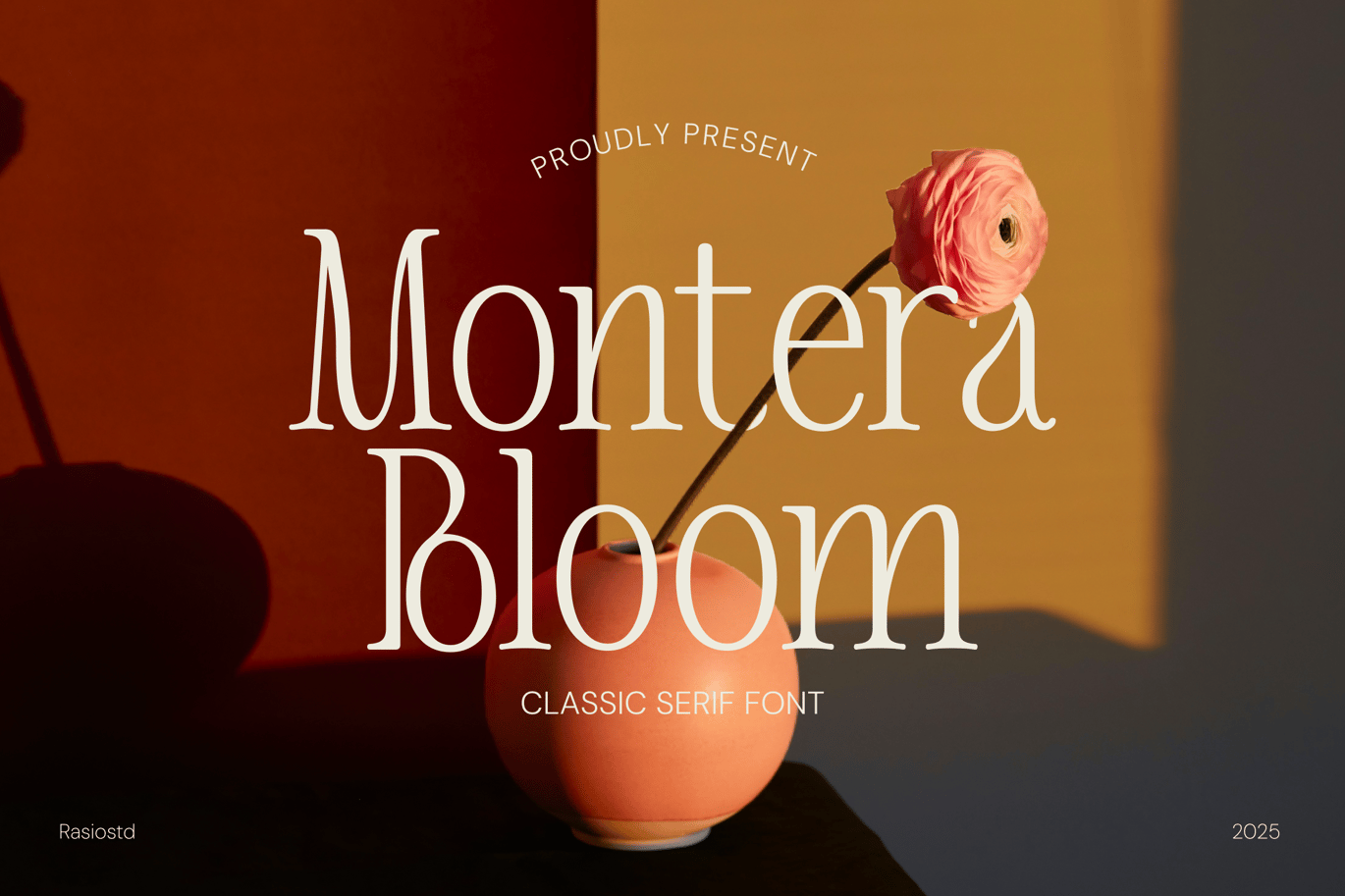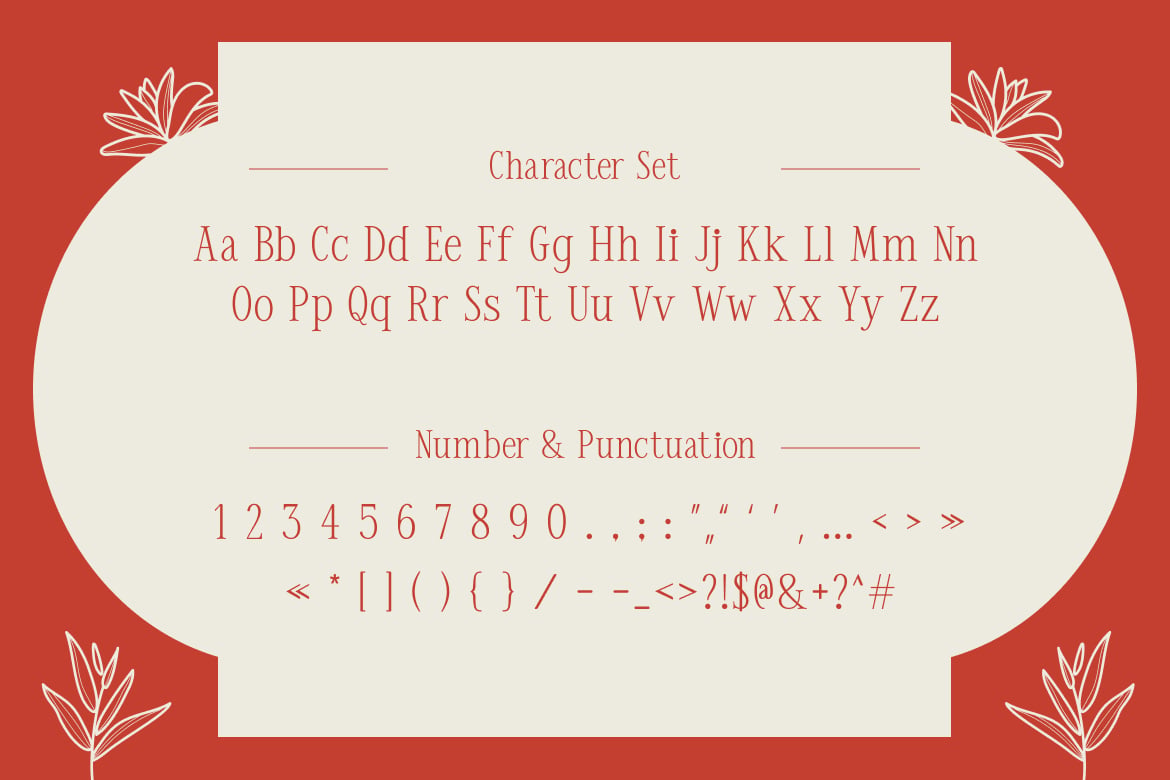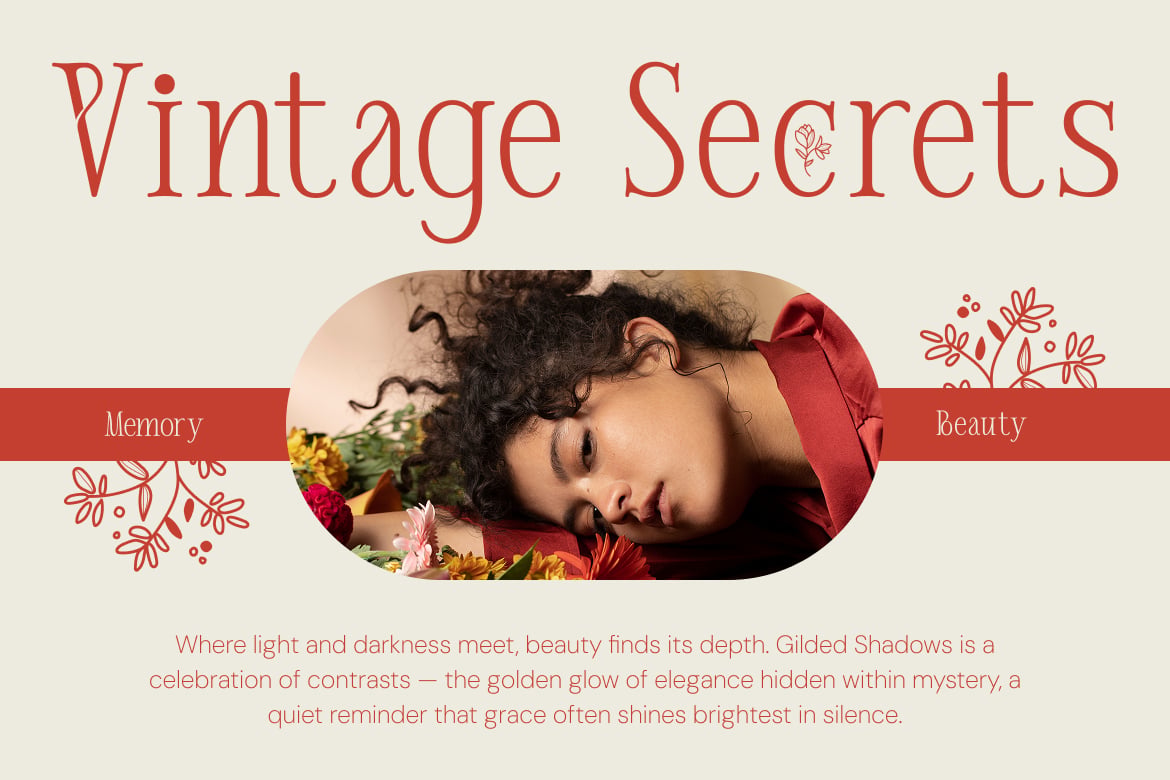
Montera Bloom has a long, elegant build. The ascenders rise well above the capitals, the M has splayed legs, and terminals finish in small, soft curls. On the cover image it sits over a peach-coloured vase with a single flower, and the type looks as delicate as the stem.
The red and cream character set shows the full alphabet in upper and lowercase plus numerals and punctuation, and the “Vintage Secrets” poster shows it in a single line beside a portrait. Rasio Studio released it in 2025 as a single Regular style in OTF, TTF and WOFF, with ligatures and alternates in the OpenType features.
Best uses for Montera Bloom
- Beauty, skincare and florist branding
- Wedding invitations and menus
- Magazine titles and editorial covers
- Candle and fragrance labels
- Photography and portfolio sites
Montera Bloom is light, so give the body text a bit more weight. Jost works well for small text and captions. For a softer, rounded partner, try Nunito Sans. If you want a matching serif for long text, Cormorant Garamond keeps the romantic mood.
Montera Bloom Classic Serif Font